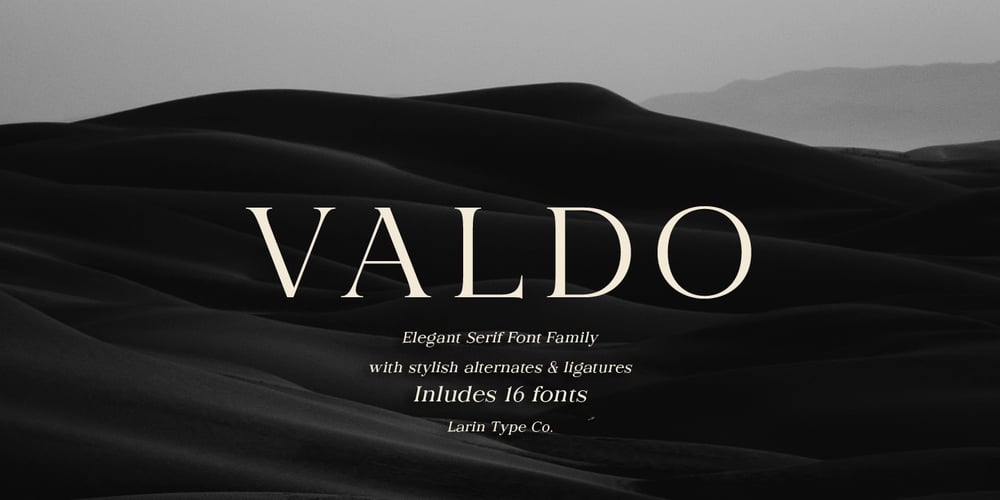
Valdo Font Family was designed by Pavel Larin and published by Larin Type Co. Valdo contains 16 styles and family package options. Valdo is an elegant and contrast serif font family, and a great fashionable solution for your project. It includes upright and Italic style, each of them has eight weights from thin to extrabold. This is a multi-purpose and classic font that is perfect for fashion project, it is contrasted, modern and easy to read. With it, you can create logos, banners, use in advertising, packaging, book covers and magazines, headings, descriptions and much more.